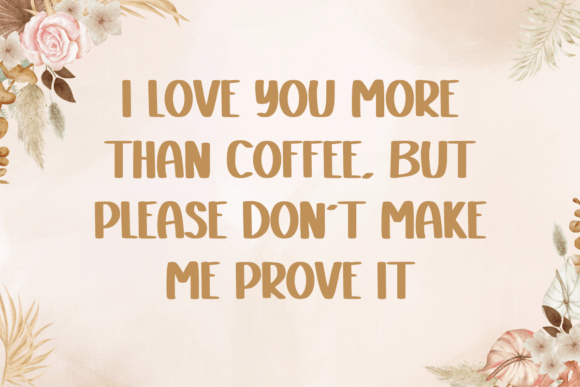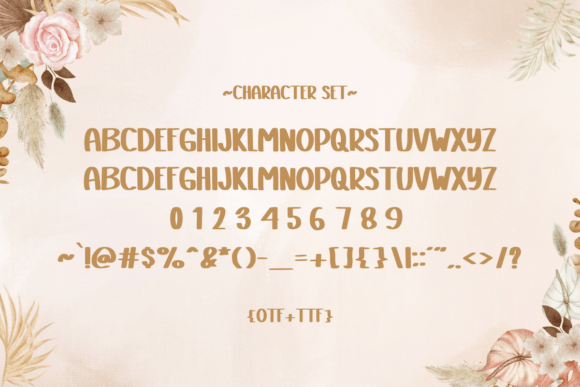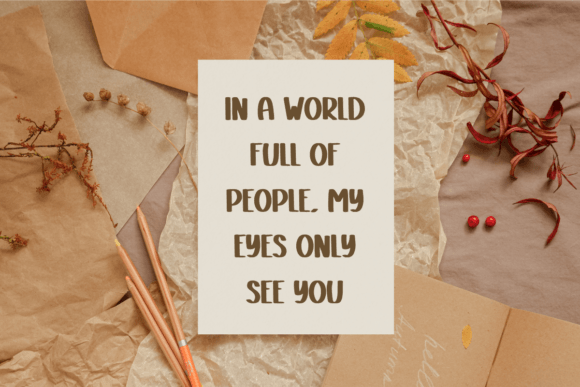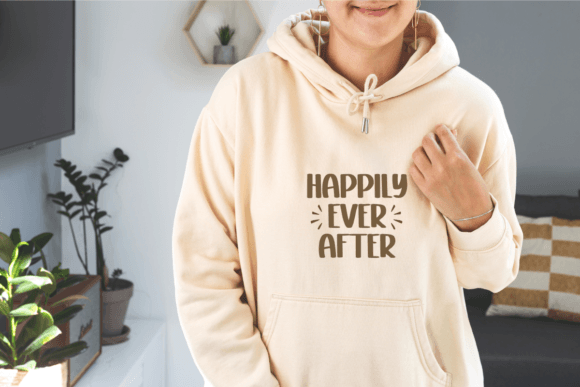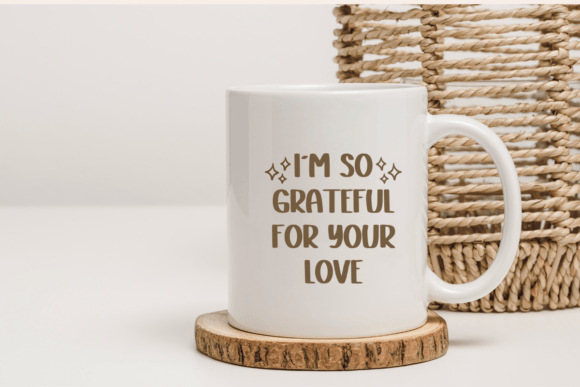
Introduction to Greeting Elegant Font
Have you ever sat down with a blank notebook, feeling inspired by the possibilities, and then suddenly, words start flowing? It’s that magical moment when creativity takes over, and you’re in the zone. For many designers, finding the perfect font to match their vision can be just as exciting. That’s where the Greeting Elegant Font comes in – a beautiful, natural handwritten font that adds a touch of elegance to any creative project.
As a valuable design resource, the Greeting Elegant Font is perfect for designers who want to give their projects a personal and unique touch. With its high-quality design and transparent background, this font is ideal for print-on-demand projects, such as notebooks, planners, and invitations. Whether you’re working on a free download or a commercial project, the Greeting Elegant Font is sure to impress.
Key Features of Greeting Elegant Font
- Includes a range of elegant and sophisticated characters, perfect for formal greetings
Honest Review: Greeting Elegant Font
I recently had the chance to work with the Greeting Elegant Font and I must say, it’s a fantastic addition to any designer’s toolkit. The font is available for free download, which is a definite plus for anyone looking for high-quality design resources.
- ✨ High-quality typography with crisp, clean lines and elegant curves.
- ✨ A wide range of glyphs and characters, making it suitable for a variety of creative projects.
- ⚠️ The font does not come with a transparent background, which may limit its use in certain design scenarios.
- ⚠️ Some users may find the font’s elegance to be too subtle or understated for their taste.
Overall, I’m thoroughly impressed with the Greeting Elegant Font and would highly recommend it to designers working on creative projects. Its high-quality typography and versatility make it a valuable resource for any design project.
Greeting Elegant Font
To get the most out of Greeting Elegant Font, try combining it with other high-quality design elements and experimenting with different font sizes and styles. This font is particularly well-suited for creating invitations, business cards, and other creative projects where a touch of elegance is desired.
Greeting Elegant Font is commonly used for:
Business cards and letterheads
Party invitations and event materials